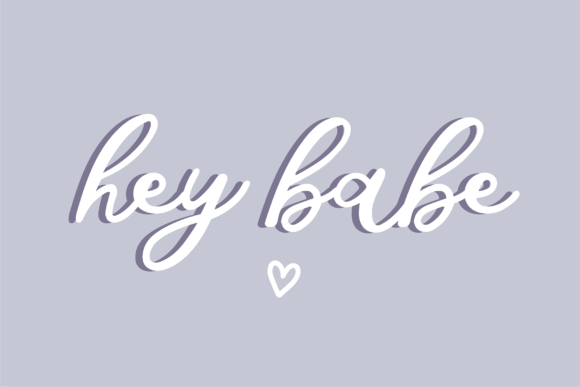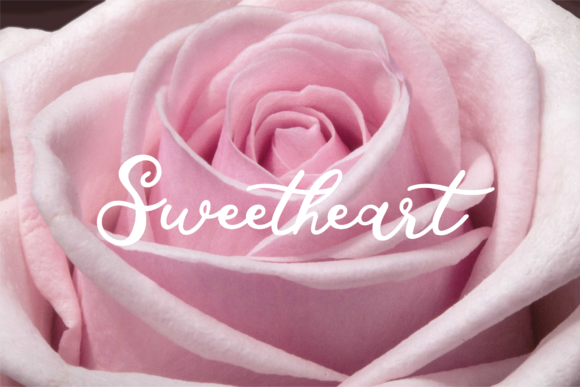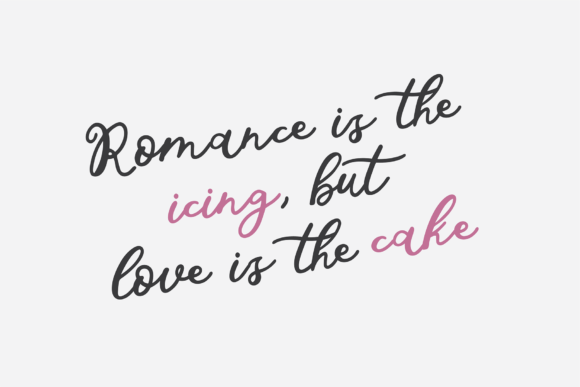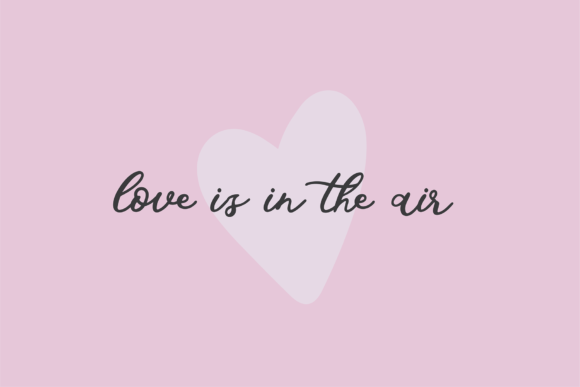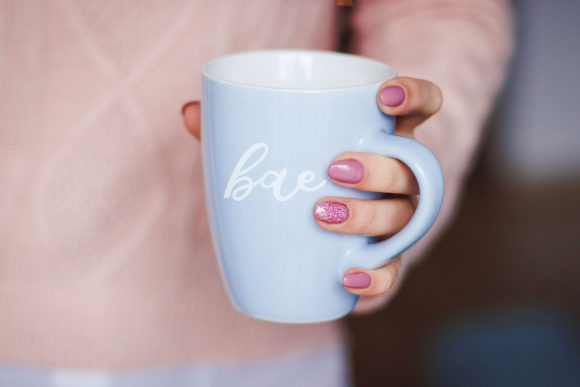
Introduction to Girlfriend Script Font
Girlfriend Script is a stylish and delicate font.
It has a clean, thin and smooth vibe and it will be a hit for any design that you want to add it to Girlfriend Script can be used for various purposes such as logos, wedding invitations, headings, t-shirts, letterhead, signage, labels, news, posters, badges and so much more.
Key Features of Girlfriend Script Font
Why Choose Girlfriend Script Font?